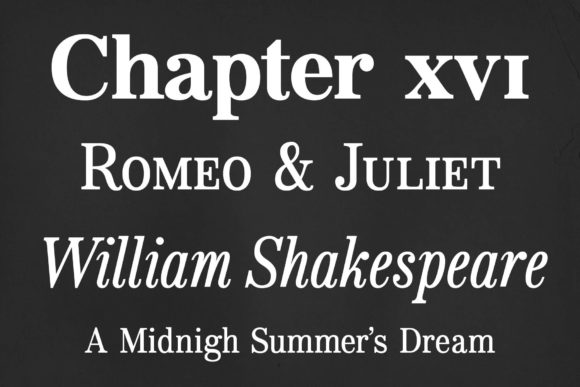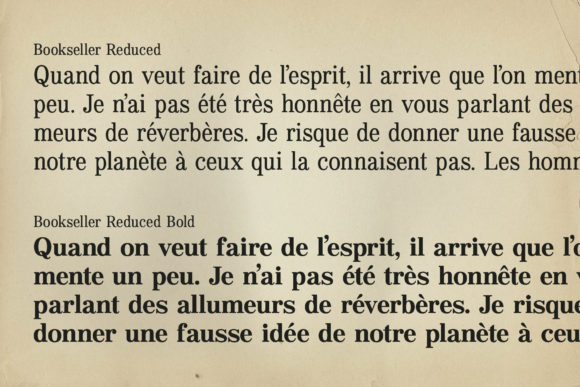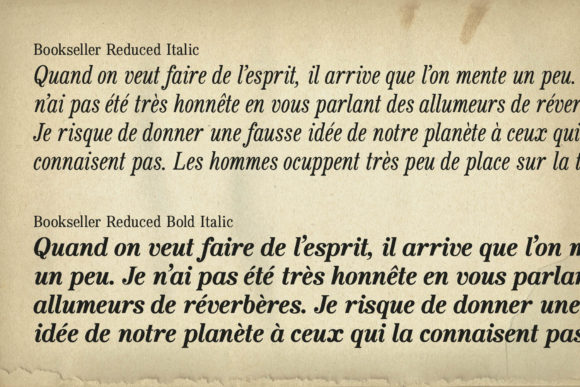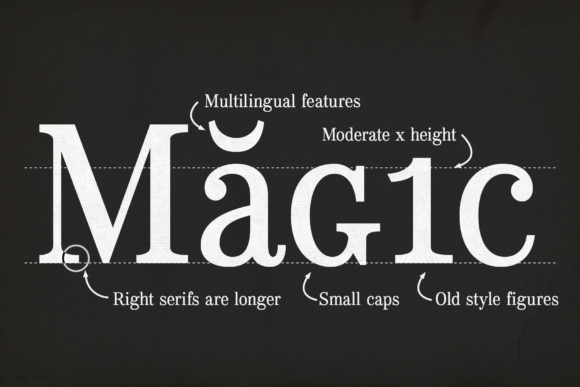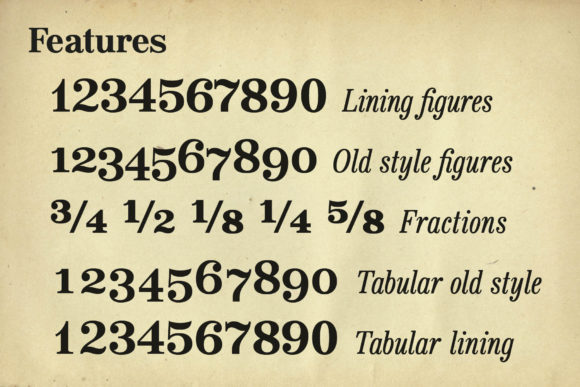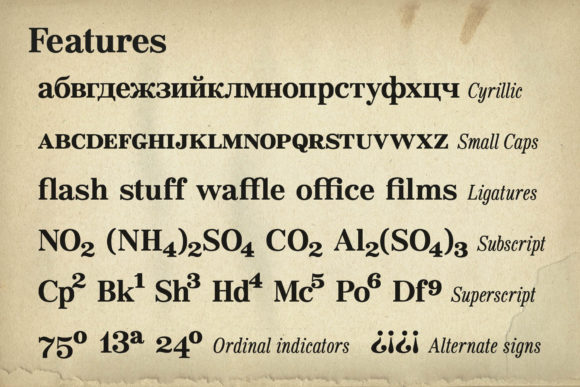
Introducing Bookseller Bk Reduced Font: The Perfect Choice for Text at Small Sizes
Are you a designer or craft looking for a serif font that can add a touch of classic elegance to your text? Look no further than Bookseller Bk Reduced Font. This beautifully crafted font is optically adjusted for text at small sizes, giving it an old book feeling that’s perfect for books, magazines, editorial design, and more.
What Sets Bookseller Bk Reduced Apart
So, what makes Bookseller Bk Reduced Font so special? For starters, its narrow look allows you to save some text lines, making it a great choice for designers who need to fit a lot of content into a small space. But that’s not all – this font also features a range of exciting characters, including small caps, old-style figures, lining figures, fractions, and a basic Cyrillic alphabet.
The Benefits of Bookseller Bk Reduced Font
Bookseller Bk Reduced Font is more than just a pretty face – it’s also a highly functional font that’s designed to make your life as a designer easier. Here are just a few of the benefits you can expect when you choose this font:
- Solid shapes: The solid shapes of Bookseller Bk Reduced Font make it perfect for use in books, magazines, and other printed materials. It’s also great for editorial design, small text, and captions.
- Narrow look: The font’s narrow look allows you to save space without sacrificing readability. This makes it a great choice for designers who need to fit a lot of content into a small area.
- Old book feeling: The font’s old book feeling is perfect for designers who want to add a touch of classic elegance to their text. Whether you’re working on a historical project or just want to add some vintage flair to your design, Bookseller Bk Reduced Font is the perfect choice.
- Range of characters: Bookseller Bk Reduced Font features a range of exciting characters, including small caps, old-style figures, lining figures, fractions, and a basic Cyrillic alphabet. This makes it a great choice for designers who need to create complex text layouts.
Who is Bookseller Bk Reduced Font for?
Bookseller Bk Reduced Font is perfect for a wide range of designers and crafters, including:
- Book designers: Whether you’re working on a novel, memoir, or other type of book, Bookseller Bk Reduced Font is a great choice. Its classic look and solid shapes make it perfect for printed materials.
- Magazine designers: The font’s narrow look and old book feeling make it a great choice for magazine designers who want to add a touch of elegance to their text.
- Editorial designers: Bookseller Bk Reduced Font is perfect for editorial designers who need to create complex text layouts. Its range of characters and solid shapes make it a great choice for a wide range of projects.
- Crafters: Whether you’re working on a craft project or just want to add some vintage flair to your design, Bookseller Bk Reduced Font is a great choice.
- Pair with other fonts: Bookseller Bk Reduced Font pairs well with a range of other fonts. Experiment with different pairings to find the look that works best for your project.
Bookseller Bk Reduced Font is a beautifully crafted serif font that’s perfect for designers and crafters who need a classic, elegant look. Its narrow look, solid shapes, and range of characters make it a great choice for a wide range of projects, from books and magazines to editorial design and small text. Whether you’re a seasoned designer or just starting out, Bookseller Bk Reduced Font is definitely worth checking out.